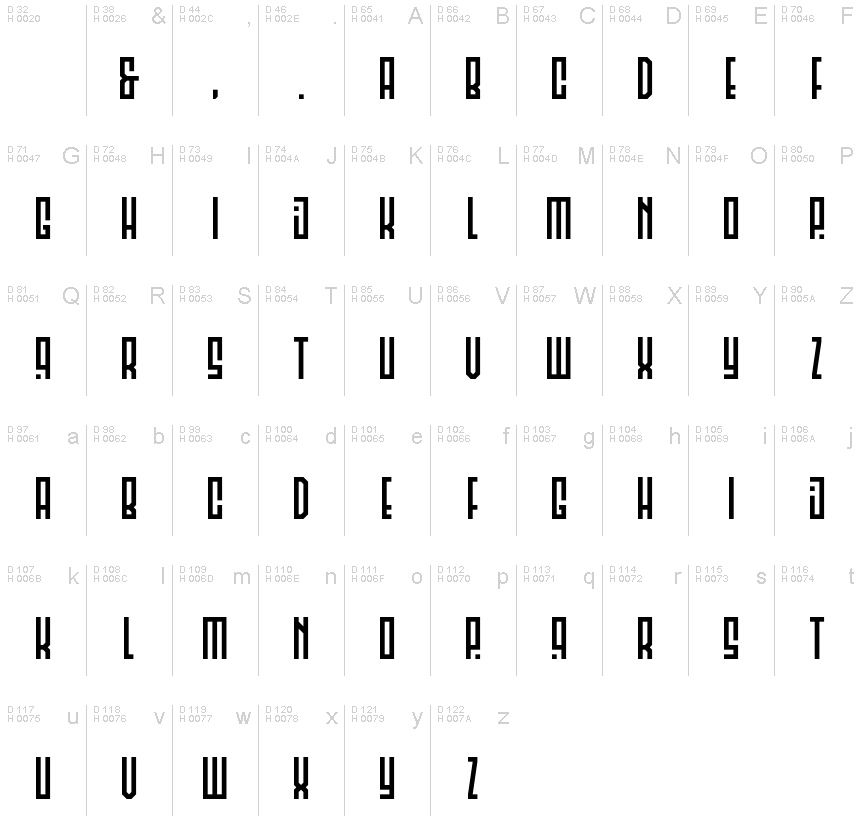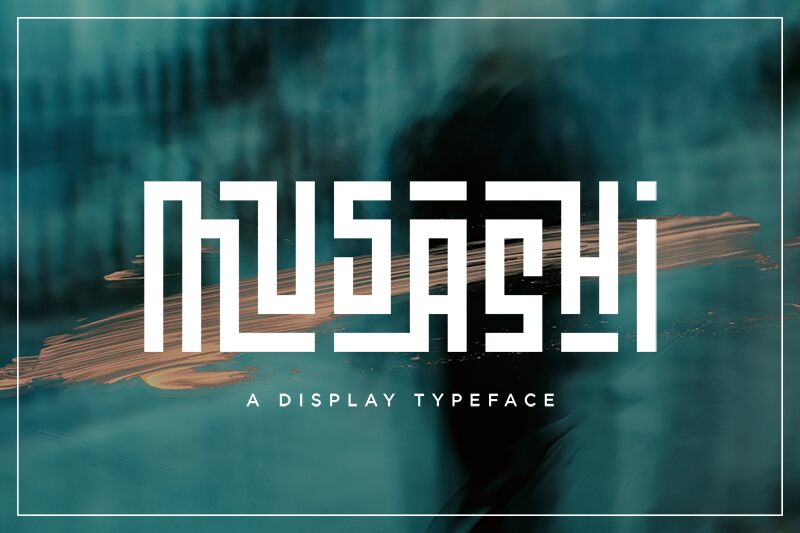
Musashi
Musashi by Typehand Studio is a striking display font that commands attention with its techno-inspired style. Its condensed width gives it a sleek, modern appearance, perfect for creating dynamic and impactful designs.
The bold, structured lines evoke a sense of futuristic sophistication, making Musashi an ideal choice for tech branding, edgy posters, and innovative web design projects. Its unique aesthetic is crafted to stand out in any setting where cutting-edge looks are paramount. Let Musashi elevate your creative vision with its unmistakable character and contemporary flair.